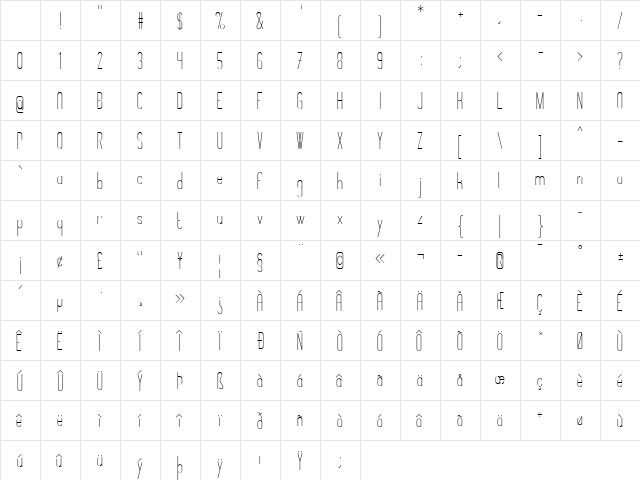
Complete Montepetrum Regular glyph index. Displaying only characters natively supported by Montepetrum Regular font.
Montepetrum is a composed and adaptable typeface that performs quietly and consistently across a wide range of design contexts.
Who designed the Montepetrum Regular font?